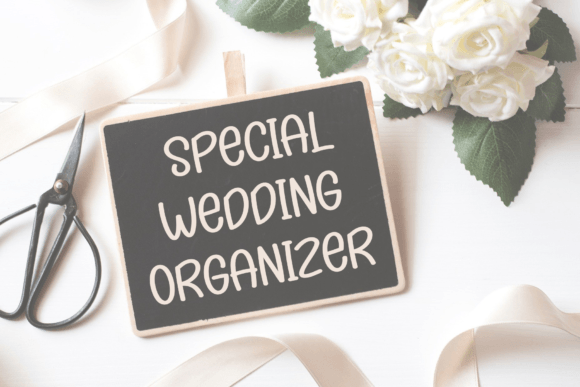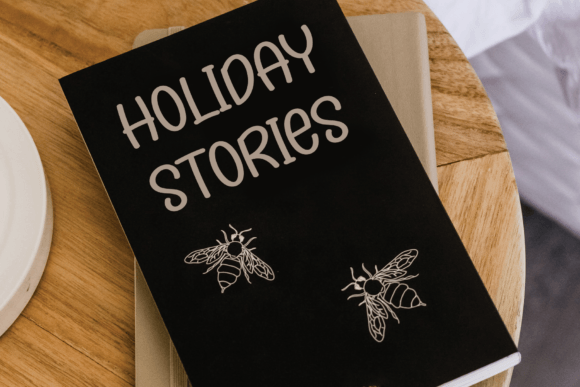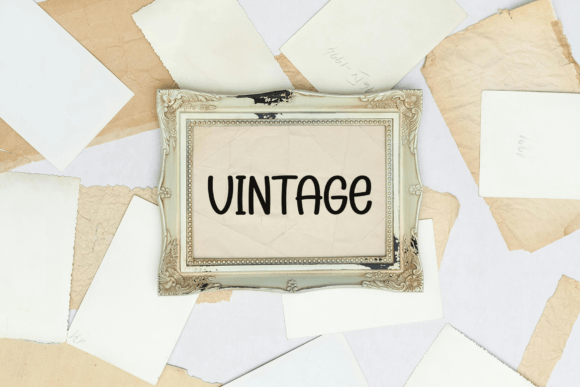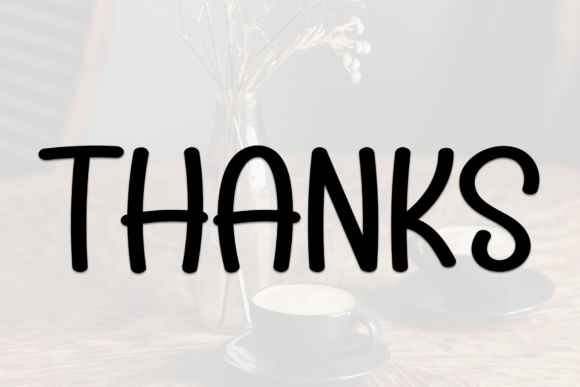
Coffee Shop Font: Adding a Playful Touch to Your Designs
Are you looking for a font that can add a fun and energetic feel to your designs? Look no further than the Coffee Shop font. This playful, handwritten font is perfect for making your text stand out with a casual, sporty vibe. In this article, we’ll take a closer look at the Coffee Shop font, its features, and how you can use it to elevate your designs.
What is Coffee Shop Font?
Coffee Shop is a handwritten font that looks like it was drawn with a bold marker. It has a playful, informal feel that’s perfect for designs that require a touch of personality. The font has a casual, sporty vibe that’s ideal for making your text stand out. Whether you’re designing a logo, a poster, or a social media graphic, Coffee Shop font is sure to add a fun and energetic feel to your design.
Key Features of Coffee Shop Font
So, what makes Coffee Shop font so special? Here are some of its key features:
- Playful and handwritten: Coffee Shop font has a playful, handwritten feel that’s perfect for designs that require a personal touch.
- Bold and energetic: The font has a bold, energetic feel that’s ideal for making your text stand out.
- Casual and sporty: Coffee Shop font has a casual, sporty vibe that’s perfect for designs that require a fun and relaxed feel.
- Easy to read: Despite its playful feel, Coffee Shop font is easy to read, making it perfect for designs that require a clear and concise message.
How to Use Coffee Shop Font
Now that we’ve covered the features of Coffee Shop font, let’s take a look at how you can use it in your designs. Here are some ideas to get you started:
- Logos and branding: Coffee Shop font is perfect for designing logos and branding materials that require a playful and energetic feel.
- Posters and flyers: Use Coffee Shop font to create eye-catching posters and flyers that grab attention.
- Social media graphics: Add a fun and energetic feel to your social media graphics with Coffee Shop font.
- Crafting and DIY projects: Coffee Shop font is also perfect for crafting and DIY projects, such as making signs, cards, and other handmade items.
Tips for Using Coffee Shop Font
Here are some tips to keep in mind when using Coffee Shop font:
- Use it sparingly: While Coffee Shop font is playful and energetic, it can be overwhelming if used too much. Use it sparingly to add a touch of personality to your design.
- Pair it with other fonts: Coffee Shop font pairs well with other fonts, such as sans-serif fonts. Experiment with different font combinations to find the perfect look for your design.
- Adjust the size and color: Adjust the size and color of Coffee Shop font to suit your design. A larger size and bold color can make the font stand out even more.
Coffee Shop font is a playful, handwritten font that’s perfect for adding a fun and energetic feel to your designs. With its casual, sporty vibe and easy-to-read design, it’s ideal for a wide range of design projects. Whether you’re a designer, crafter, or DIY enthusiast, Coffee Shop font is sure to become a favorite in your font collection.